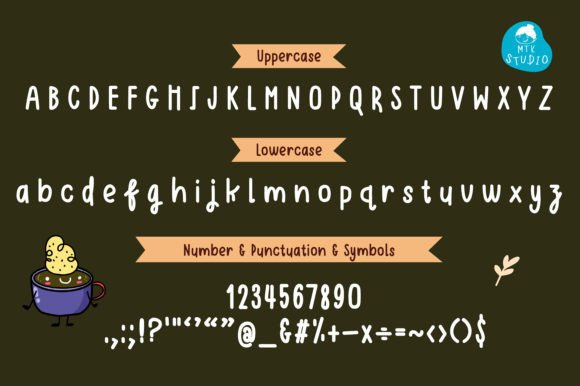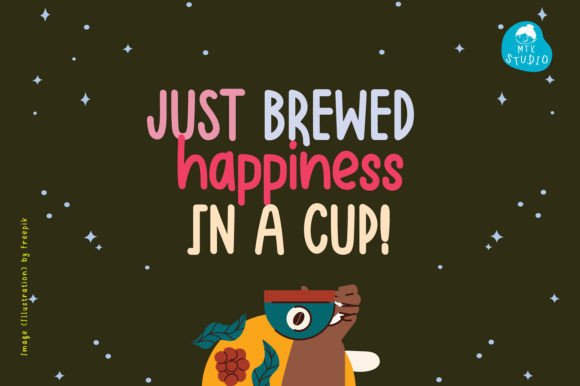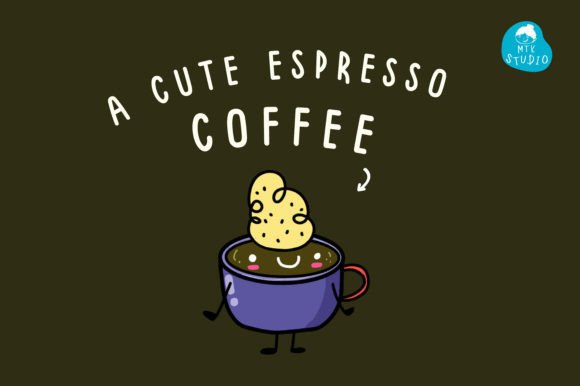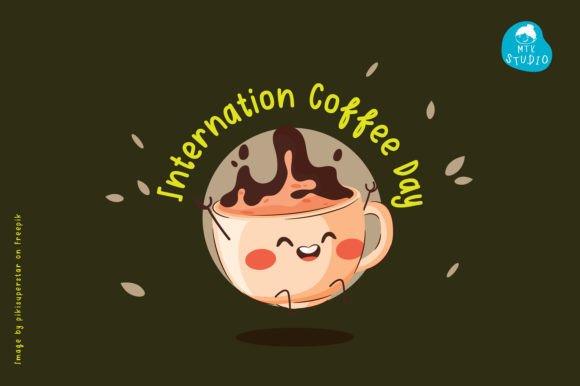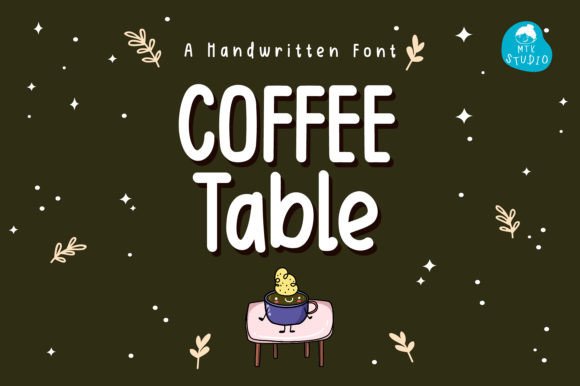
Coffeetable Font: The Perfect Addition to Your Design Arsenal
Are you tired of using the same old fonts in your designs? Look no further than the Coffeetable Font, a sweet and friendly handwritten font that’s sure to elevate your creative projects. With its natural and unique style, this font is incredibly versatile and can be used in a wide range of designs, from rustic and vintage to modern and playful.
The Story Behind Coffeetable Font
Coffee Table is a handcrafted font that’s designed to bring a touch of warmth and personality to your designs. Its creator had a vision of crafting a font that would be both elegant and approachable, making it perfect for use in a variety of contexts, from branding and advertising to packaging and digital media.
What Makes Coffeetable Font So Special?
So, what sets Coffeetable Font apart from other fonts on the market? Here are just a few of its standout features:
- Unique and Handwritten Style: Coffeetable Font boasts a one-of-a-kind, handwritten style that’s full of character and charm. Its natural, imperfect look makes it instantly recognizable and memorable.
- Highly Versatile: Whether you’re working on a rustic-themed project or a modern, minimalist design, Coffeetable Font adapts seamlessly to any style or aesthetic.
- Easy to Read: Despite its unique look, Coffeetable Font is incredibly legible, making it perfect for use in body text, headings, and titles.
- Wide Range of Uses: From crafting and DIY projects to professional design work, Coffeetable Font is the perfect choice for anyone looking to add a personal touch to their creations.
How to Use Coffeetable Font in Your Designs
Ready to start using Coffeetable Font in your designs? Here are a few ideas to get you started:
- Branding and Logo Design: Use Coffeetable Font to create a unique and memorable brand identity that stands out from the crowd.
- Digital Media: Add a touch of personality to your social media graphics, blog posts, and website headers with Coffeetable Font.
- Packaging and Product Design: Make your products stand out on store shelves with eye-catching packaging that features Coffeetable Font.
- Crafting and DIY Projects: Use Coffeetable Font to add a personal touch to your handmade crafts, such as journals, planners, and gift tags.
Tips and Tricks for Getting the Most Out of Coffeetable Font
Here are a few expert tips for using Coffeetable Font in your designs:
- Experiment with Different Sizes and Colors: Coffeetable Font looks great in a range of sizes and colors, so don’t be afraid to experiment and find the perfect combination for your design.
- Pair with Other Fonts: Try pairing Coffeetable Font with other fonts to create a unique and eye-catching typography combination.
- Use it Consistently: For maximum impact, use Coffeetable Font consistently throughout your design to create a cohesive and recognizable brand identity.
In conclusion, Coffeetable Font is a sweet and friendly handwritten font that’s perfect for designers and crafters looking to add a personal touch to their creations. With its unique and versatile style, this font is sure to become a staple in your design arsenal. So why wait? Download Coffeetable Font today and start bringing your designs to life!